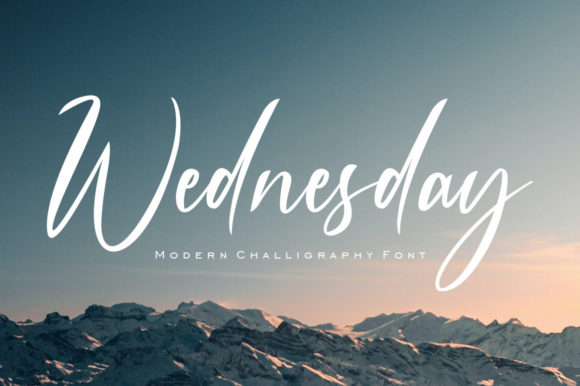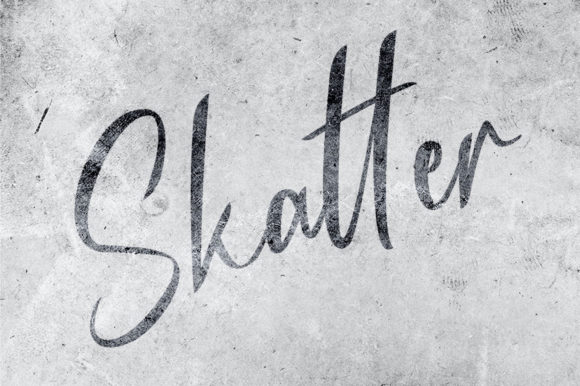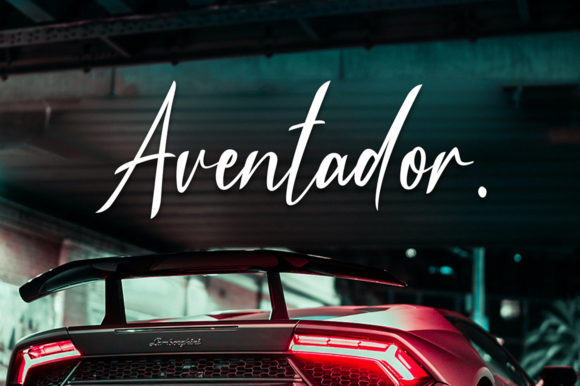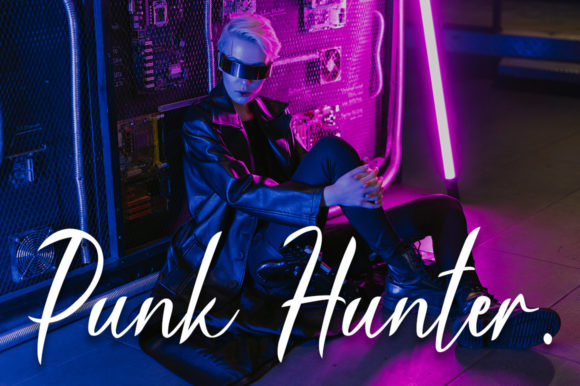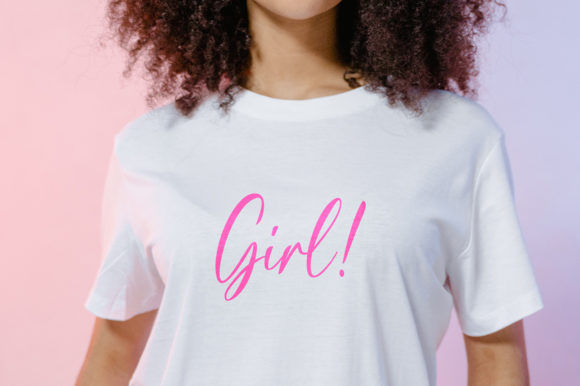
Wednesday Font
About Wednesday Font
Wednesday is a relaxed, cursive and gorgeous script font. It is suitable for logotype, headline font, in corporate identity, brand identity, apparel industry, poster, music, movie, game, magazine, book, comic, cartoon, YouTube, Instagram, website, or any of your creative design projects.